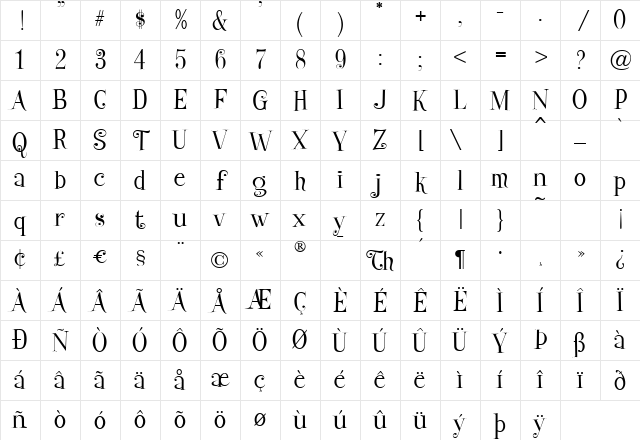
Complete GypsySwitchJF Regular glyph index. Displaying only characters natively supported by GypsySwitchJF Regular font.
GypsySwitchJF is a composed and adaptable typeface that performs quietly and consistently across a wide range of design contexts.